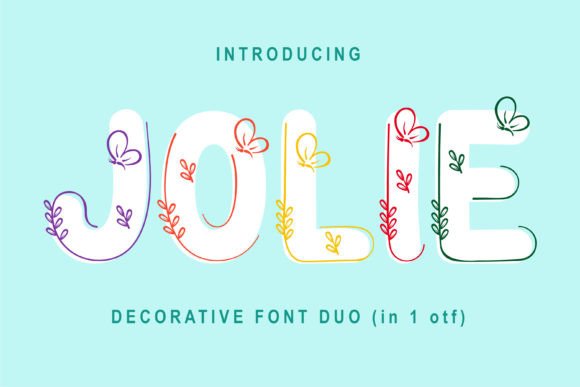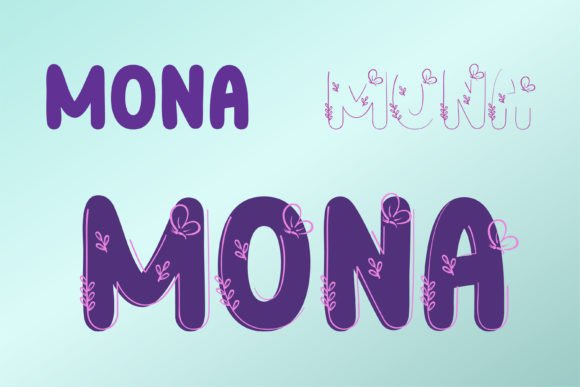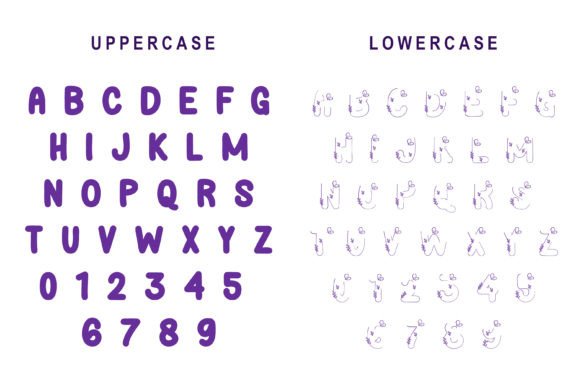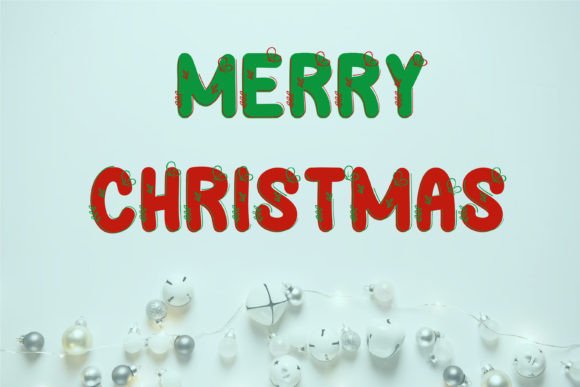
Jolie Font
About the Jolie Font
We are excited to introduce Jolie Font, a must-have typeface for any serious designer. Jolie is a fun, cute decorative layered font. Use Uppercase for base font, then lowercase for cute decorative font.
Jolie’s playful layered design is ideal for headlines, short slogans, branding elements such as logos or icons, and eye-catching packaging designs. It adds a touch of whimsy and fun to projects targeting a younger demographic or those needing a lighthearted feel. Avoid using Jolie for body text or large blocks of text; its decorative nature makes it less legible for extended reading.
This font’s personality is undeniably cheerful and approachable. Pairing it with a clean sans-serif like Open Sans for body copy creates a strong contrast and balanced visual hierarchy. For a more sophisticated feel, consider pairing Jolie with a classic serif such as Garamond or a slightly more geometric sans-serif like Montserrat.
Using Jolie with playful scripts like Pacifico or cursive fonts enhances its fun aesthetic for projects like children’s books or invitations. However, pairing it with heavy or overly serious fonts will clash with Jolie’s inherent lightheartedness.